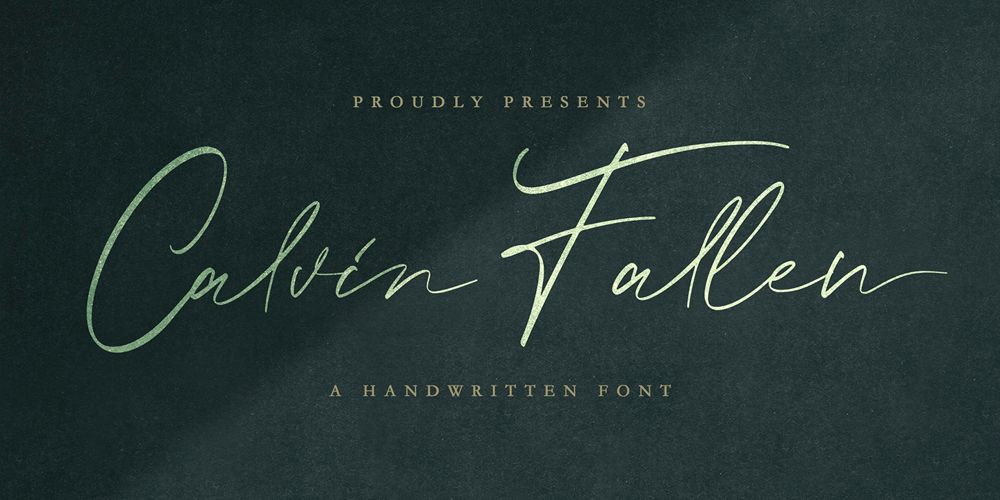
Calvin Fallen Font Family was designed by Virgiawan Listanto and published by Stringlabs Creative Studio. Calvin Fallen contains 1 styles and family package options. Calvin Fallen is a beautiful script font with an incredibly endearing and authentic feel. Use this gorgeous and unique handwritten font to bring any DIY project to life!